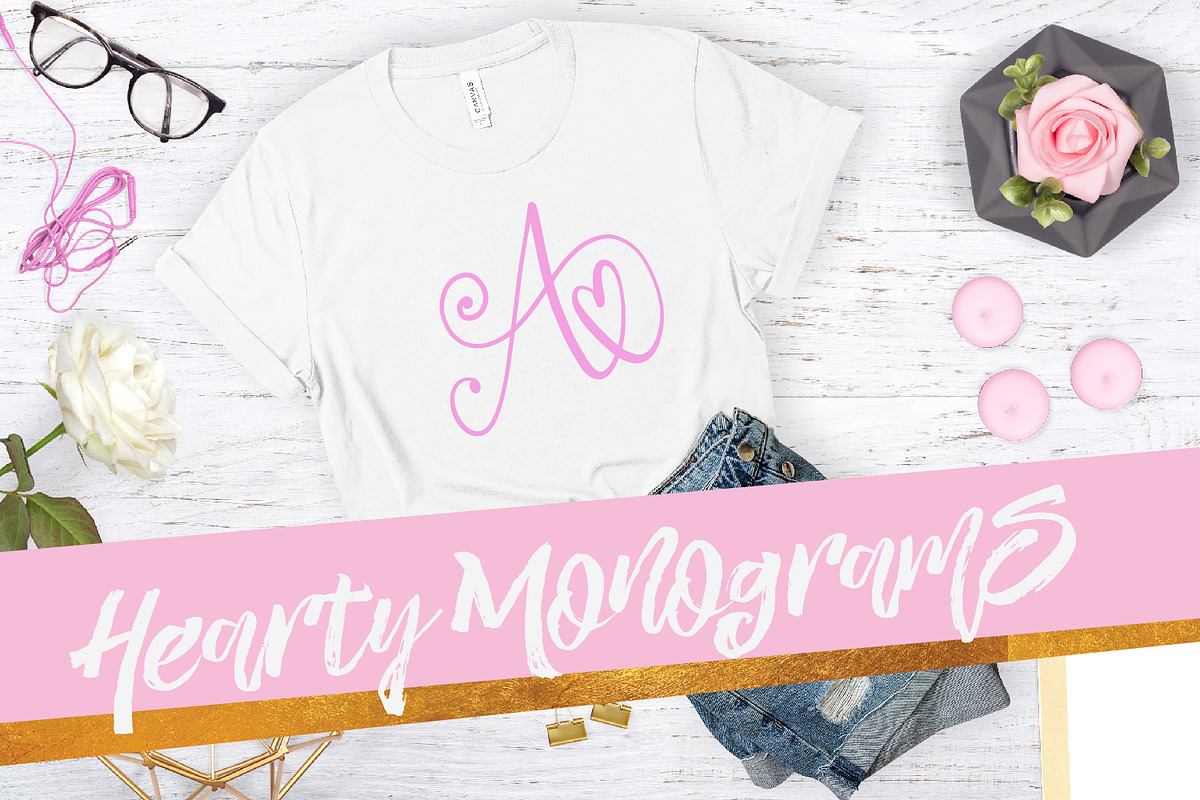
You must purchase this font for commercial use. However, you can download Hand Lettered Heart Monogram Font Free Download for testing purposes. This font is a beautiful, hand-lettered monogram style with heart-shaped elements, perfect for creating personalized and romantic designs. Its flowing, elegant strokes make it ideal for wedding invitations, custom logos, greeting cards, and monogram designs that need a charming and personal touch.
The unique combination of hand-drawn letterforms and heart motifs gives the font a warm and inviting feel, making it ideal for projects that require a personal, heartfelt aesthetic. Whether you're designing a wedding logo, crafting a love note, or creating a meaningful gift, this font adds a thoughtful, romantic flair to your typography.